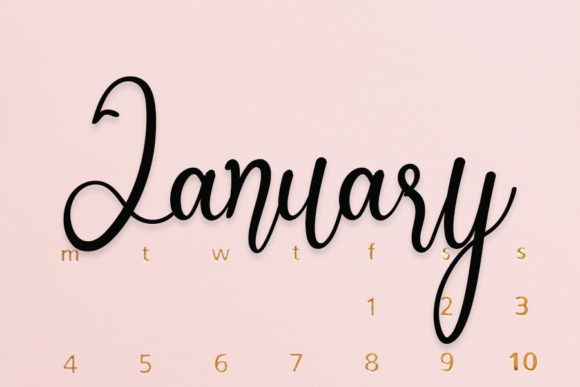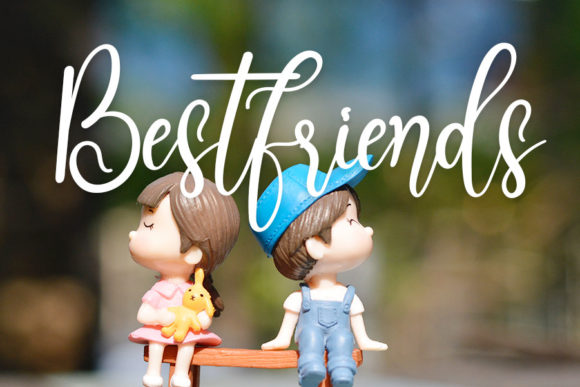
Holy Month Font
db-ku.com - Script & Handwritten -- Holy Month is a friendly handwritten font, carefully designed to become a true favorite. It maintains its classy calligraphic influences while feeling contemporary and fresh.